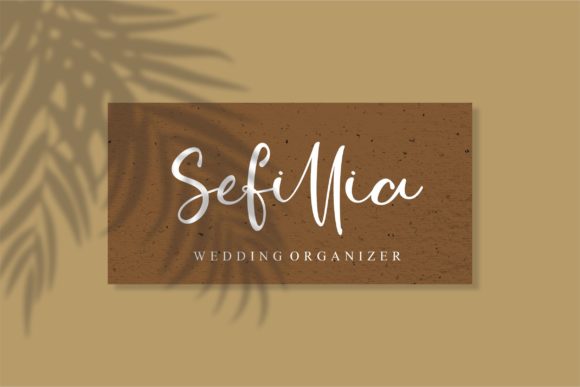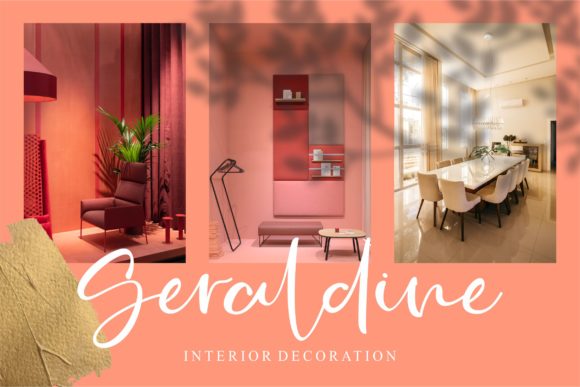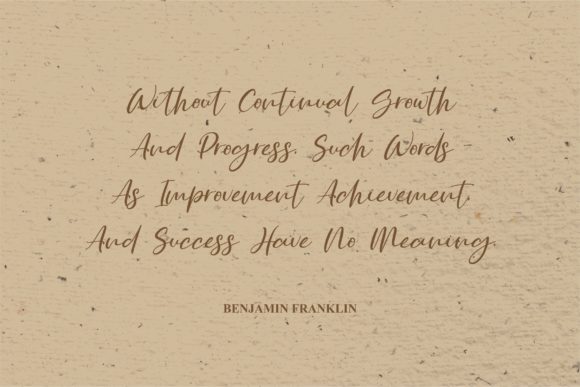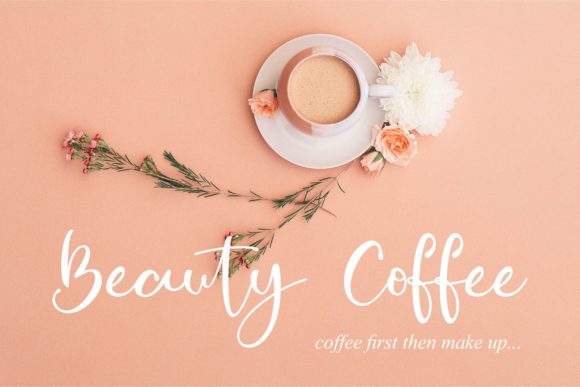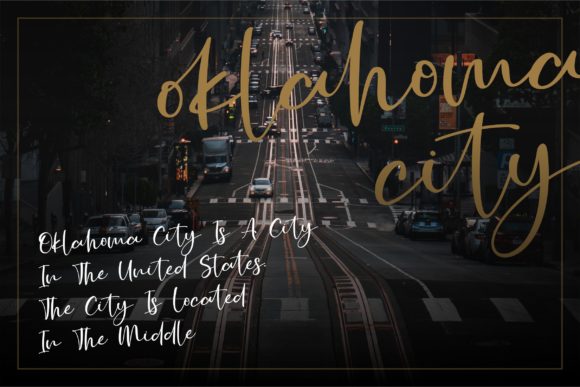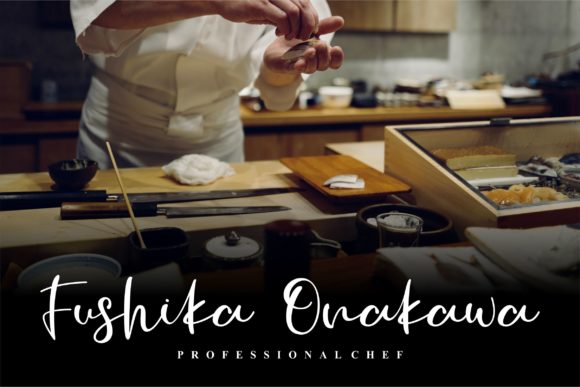
Introduction to Golden Ballpoint Font
As a designer, there’s nothing quite like the thrill of bringing a creative project to life. You’ve spent hours pouring over every detail, from the color palette to the typography, and finally, it’s time to add the finishing touches. That’s when you stumble upon the perfect font – one that elevates your design and makes it truly special. For many designers, that font is the Golden Ballpoint Font, a high-quality, elegant script that adds a handwritten touch to any design.
Whether you’re working on a wedding invitation, a quote, or a business card, the Golden Ballpoint Font is a valuable resource that can help you create stunning designs with ease. With its varying baseline, smooth lines, and gorgeous glyphs, this font is a must-have for any designer looking to add a personal touch to their work.
Key Features of Golden Ballpoint Font
- High-quality design resource for creative projects: Golden Ballpoint Font is a unique and stylish font perfect for designers and artists looking for a distinctive aesthetic.
- Unique characteristics: The font’s distinctive ballpoint pen-inspired design makes it perfect for creative projects that require a unique and stylish touch.
- Perfect for design projects with a vintage or retro feel: Golden Ballpoint Font’s aesthetic is reminiscent of vintage writing, making it an excellent choice for design projects that require a nostalgic touch.
Honest Review: Golden Ballpoint Font
As a designer, I’m always on the lookout for high-quality design resources to elevate my creative projects. The Golden Ballpoint Font has been a recent addition to my toolkit, and I’m excited to share my honest review.
- ✨ Unique and stylish design that adds a touch of sophistication to any project
- ⚠️ Limited font sizes and styles available, which may not be suitable for complex or multi-faceted designs
Golden Ballpoint Font is ideal for various creative projects, including logos, business cards, and marketing materials. Its high-quality design and versatility make it a popular choice among designers.